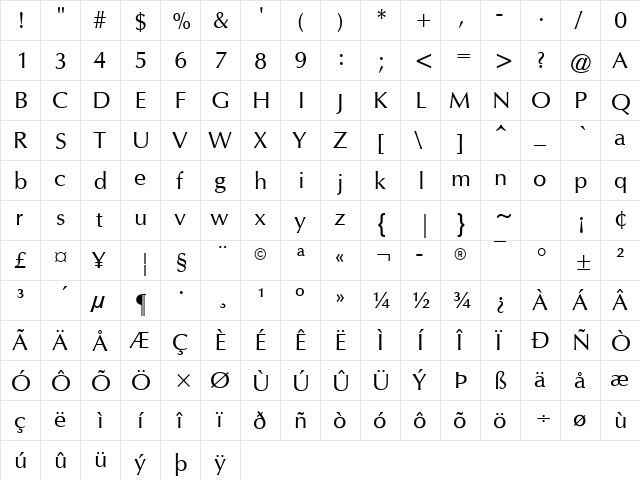
Orion Regular
Design Context for Orion Typeface
Orion takes a measured approach to typography — its balanced proportions and neutral character make it a reliable workhorse for both digital and print work.
Pro Tip: Pair Orion with a font of contrasting weight or personality to build a more expressive typographic hierarchy.